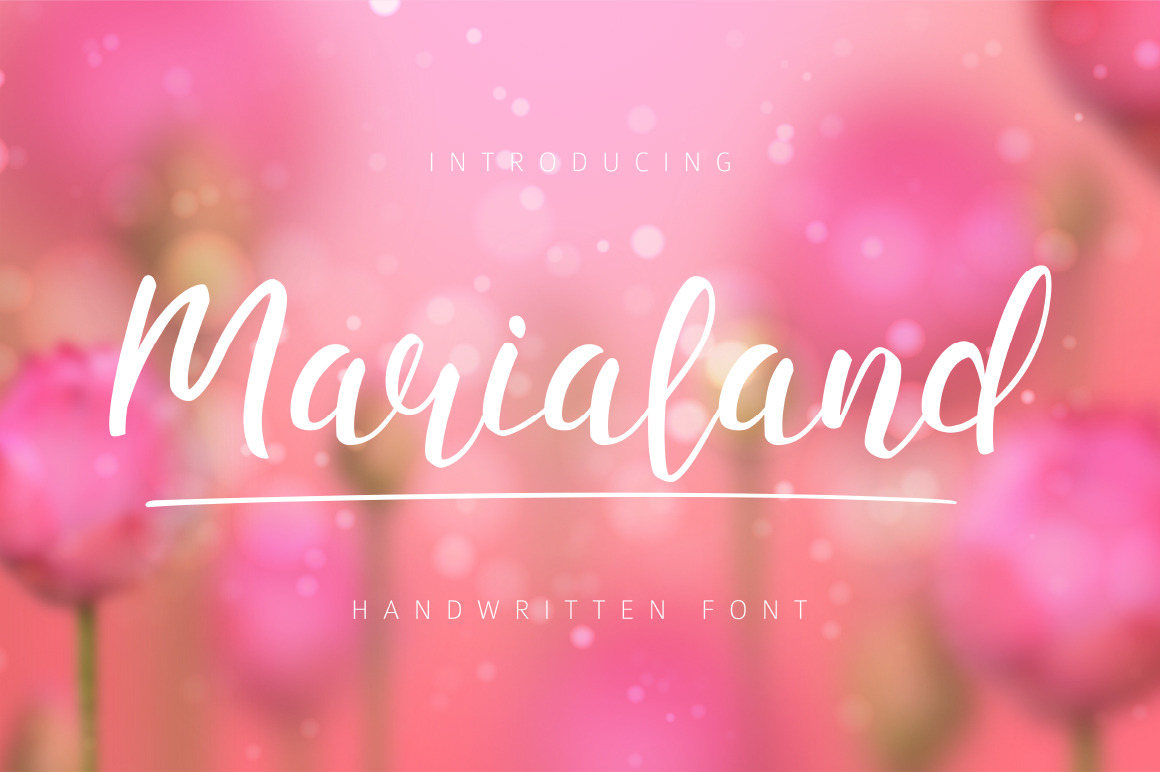
Marialand Font
Marialand Font is a hand-drawn script with authentic imperfections. A handmade font containing upper & lowercase characters, numerals and a large range of punctuation.
Marialand Font containing language support characters.
Perfect for brand imagery, logos, product packaging, posters, social media posts, apparel, t-shirts.